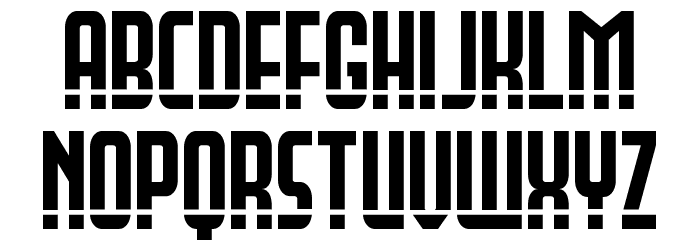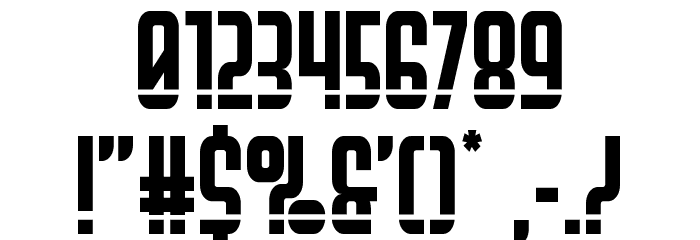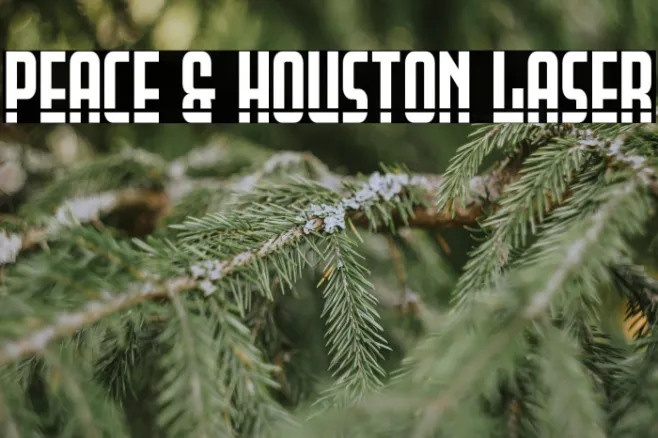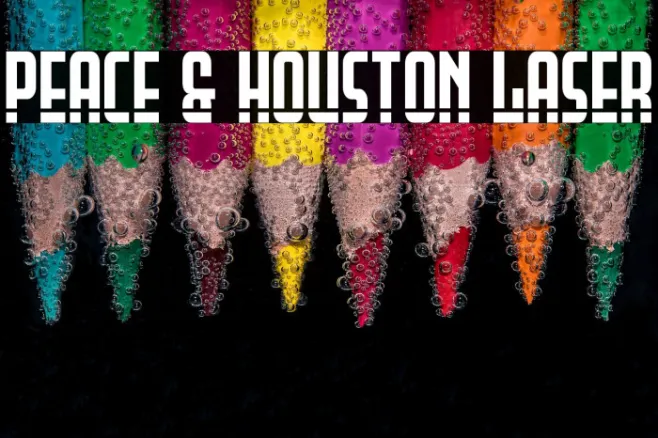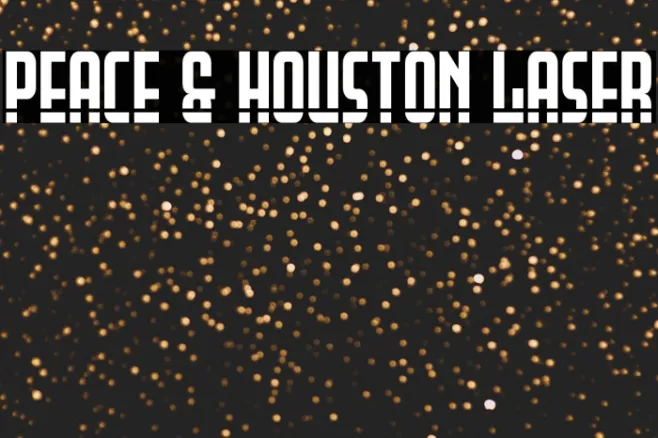
Peace & Houston Laser Font
This font features a bold, geometric design with a distinct stencil-like appearance. Each character is constructed with solid, blocky shapes, creating a futuristic and industrial feel. The letters are uniformly wide, with consistent vertical and horizontal lines that give the font a structured and mechanical look. The use of negative space within the characters enhances its stencil effect, making it ideal for impactful and attention-grabbing designs. The font's style is both modern and edgy, suitable for projects that require a strong visual presence.
A bold, geometric stencil font with a modern, industrial style.
- Font: Peace & Houston Laser
- Proposed Projects: Ideal for branding, posters, signage, and any design requiring a strong, modern aesthetic.